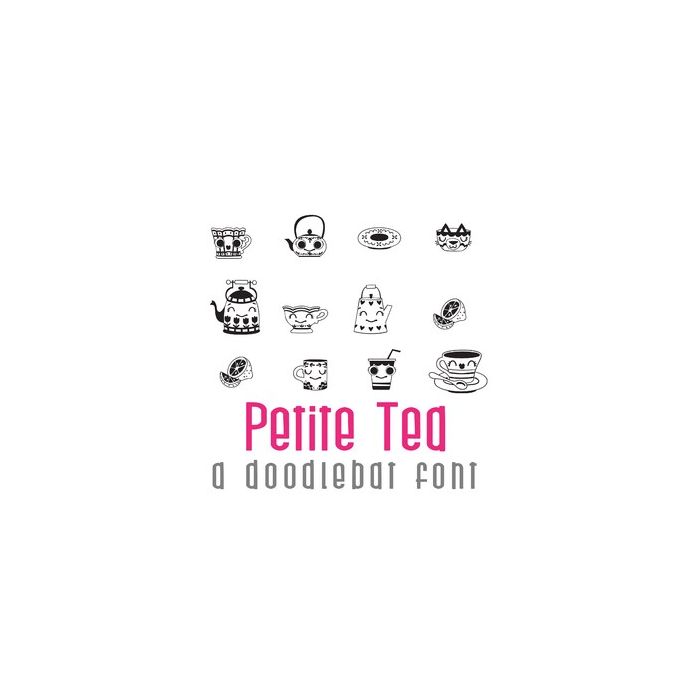
This fun doodlebat font features 26 tea themed imagery in cute Kawaii style. Perfect for cards, crafts, gifts, parties,planner stickers, scrapbook pages and more!